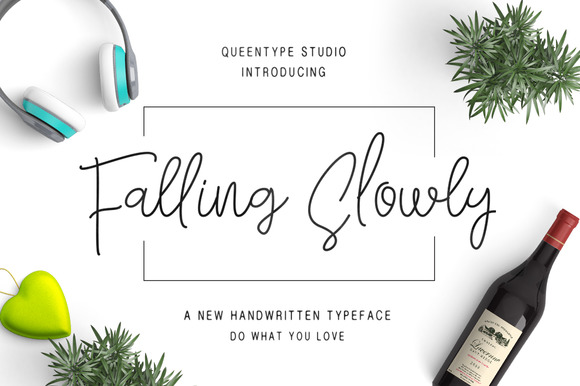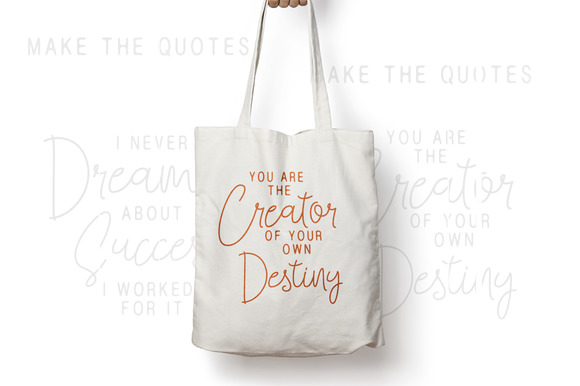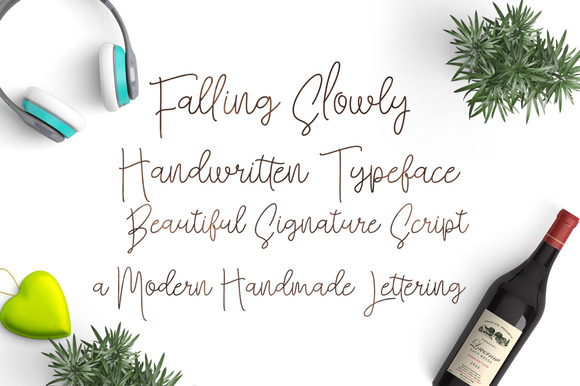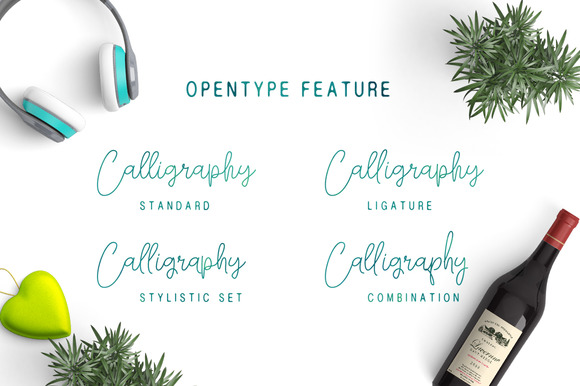
HomeScript FontsFalling Slowly Font Script Fonts Falling Slowly Font FacebookXPinterestWhatsApp Falling Slowly Font Poster 2 Falling Slowly Font Poster 3 Falling Slowly Font Poster 4 About Falling Slowly Font Falling Slowly Typeface is a beautiful hand written script typeface with a natural look. DOWNLOAD NOW People also explored Samantha Font Cutta Font Automata Carolina Francesca Font Stitch Font Redwood Regular Font Messy Marker Font The March Font King Font 316 0 TagsFalling Slowly Font Previous articleGreatpark FontNext articleDeHangster Font LEAVE A REPLY Cancel reply Comment: Please enter your comment! Name:* Please enter your name here Email:* You have entered an incorrect email address! Please enter your email address here Website: Save my name, email, and website in this browser for the next time I comment. Personal Use Free Genres Personal Use Free Read more about this font Darla Personal Use Free Read more about this font White Rose Personal Use Free Read more about this font Sushi Day Personal Use Free Read more about this font BLOG To increase your work productivity, choose the most readable fonts. In today's fast-paced work environment, where digital communication and information consumption are integral to our daily routines, the choice of fonts can significantly impact... Best Fonts for T-Shirt Design – Top 2025 Picks 5 Fonts That Will Dominate Design Trends in 2026 The 10 Best Handwriting Fonts to Add Personality to Your Designs